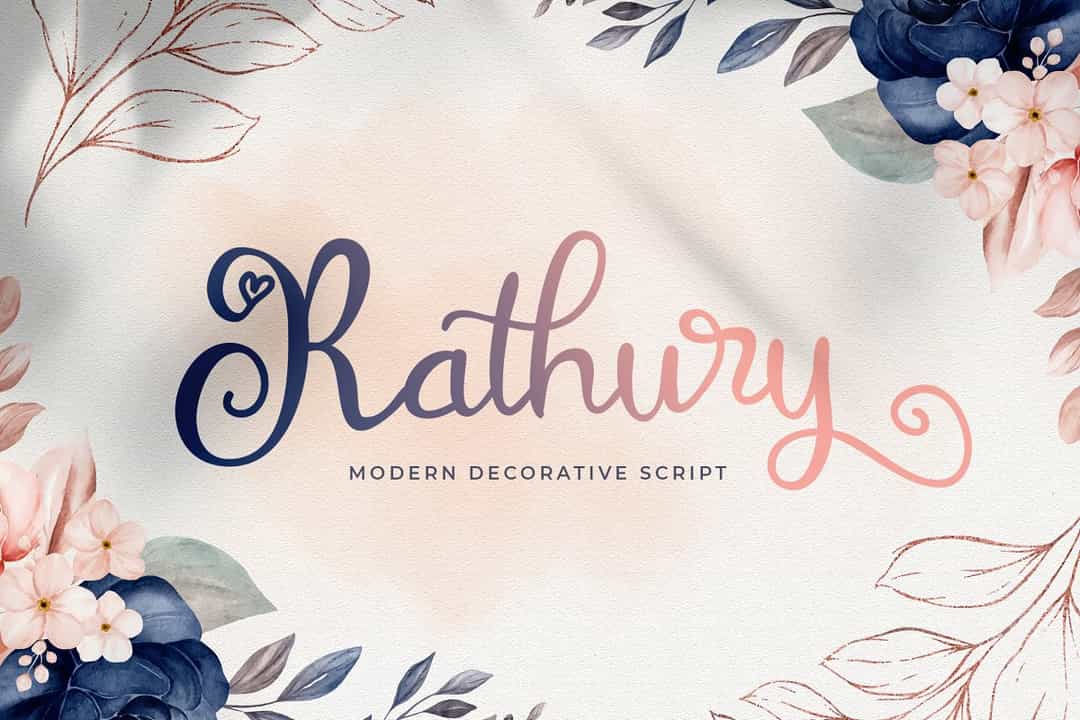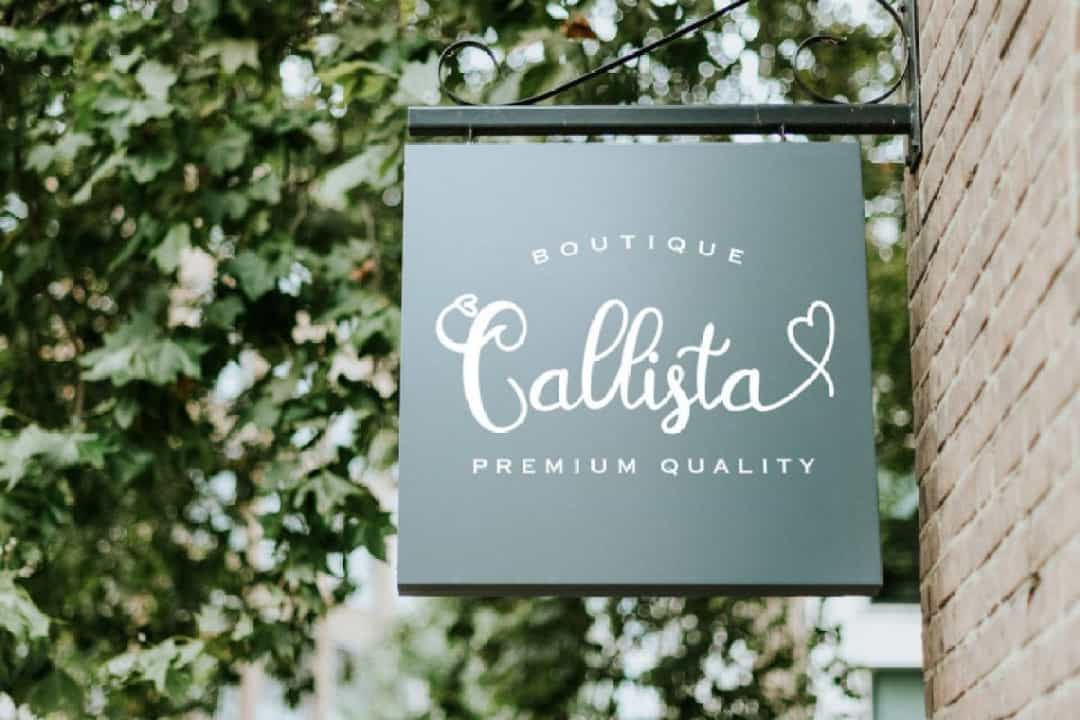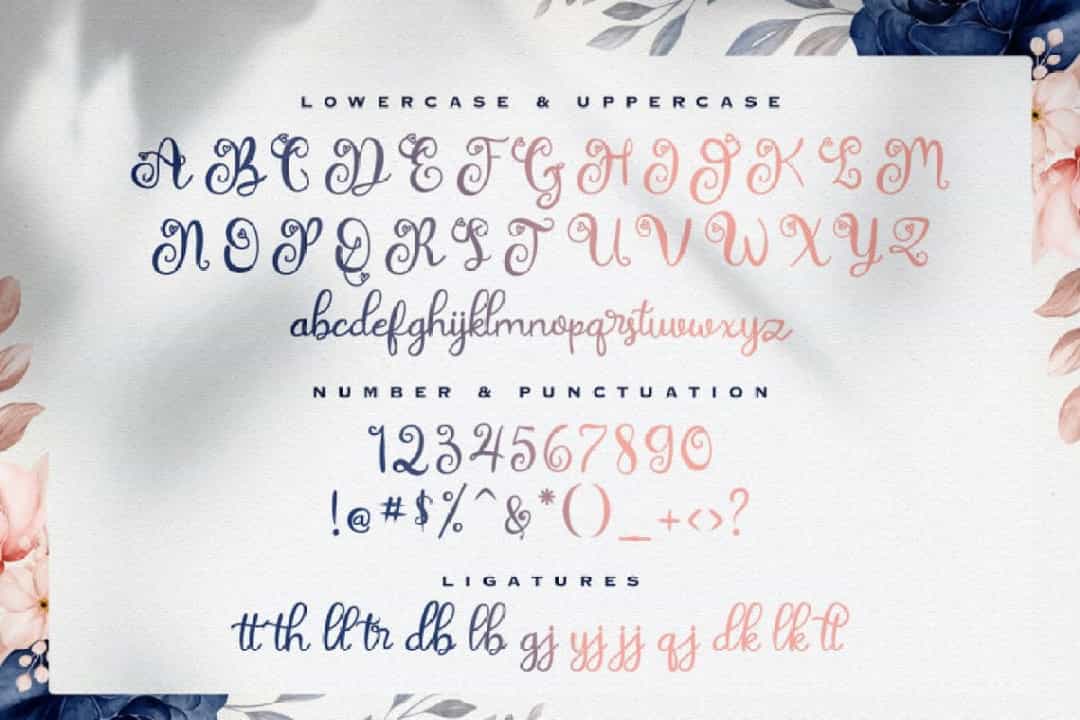
Rathury is a beautiful contemporary font for calligraphy. With its great swashes and Ligatures that make this artistic script very versatile in use from social media posts to DIY projects, Rathury will transform your creativity into elegant pieces of art!